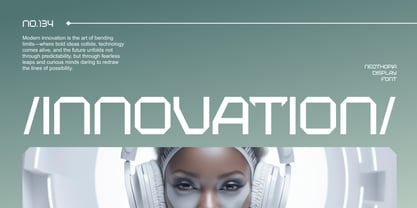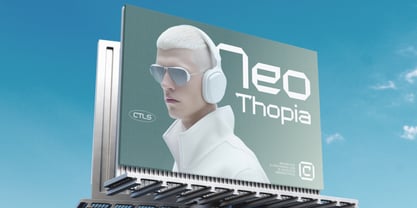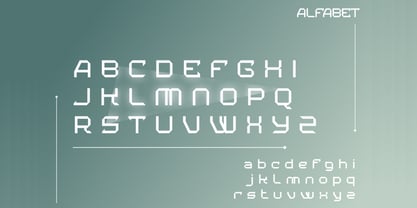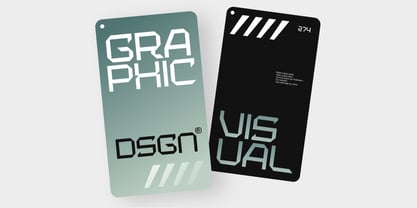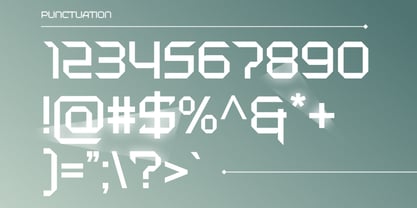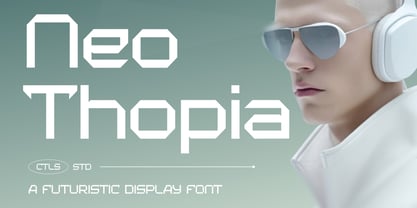
Neothopia
by Catalystco Std
Neothopia Futuristic Display Font combines angular geometry with minimalist precision to create a sleek, forward-looking aesthetic. Its sharp edges, clean cuts, and modular forms evoke a sense of digital innovation, making it perfect for sci-fi visuals, tech interfaces, or futuristic branding. The distinctive rhythm of each character delivers a bold, high-tech personality in both display and headline use. Includes uppercase and lowercase letters, numerals, and punctuation. Neothopia offers a cutting-edge visual identity that captures the essence of modern technology and visionary design.